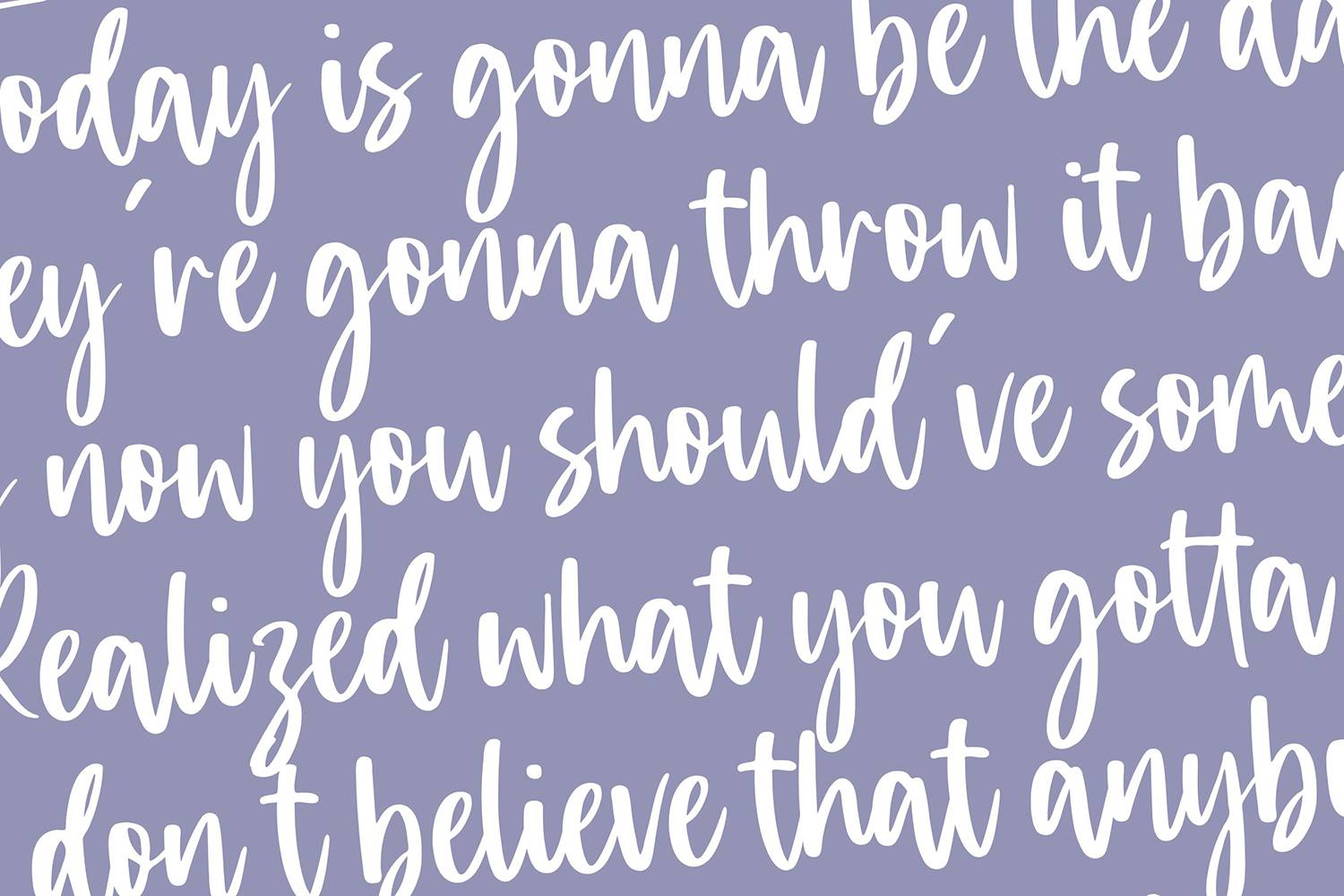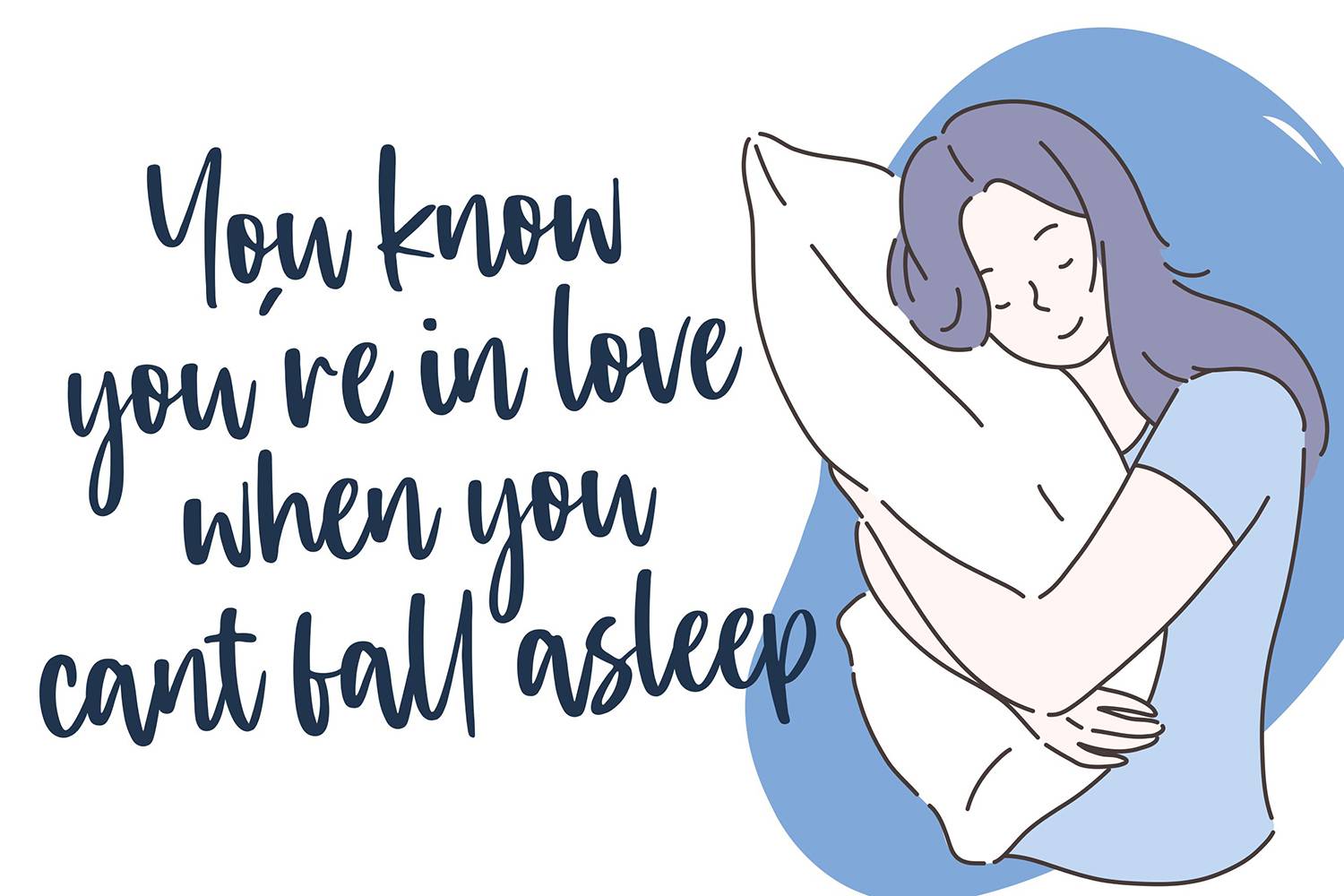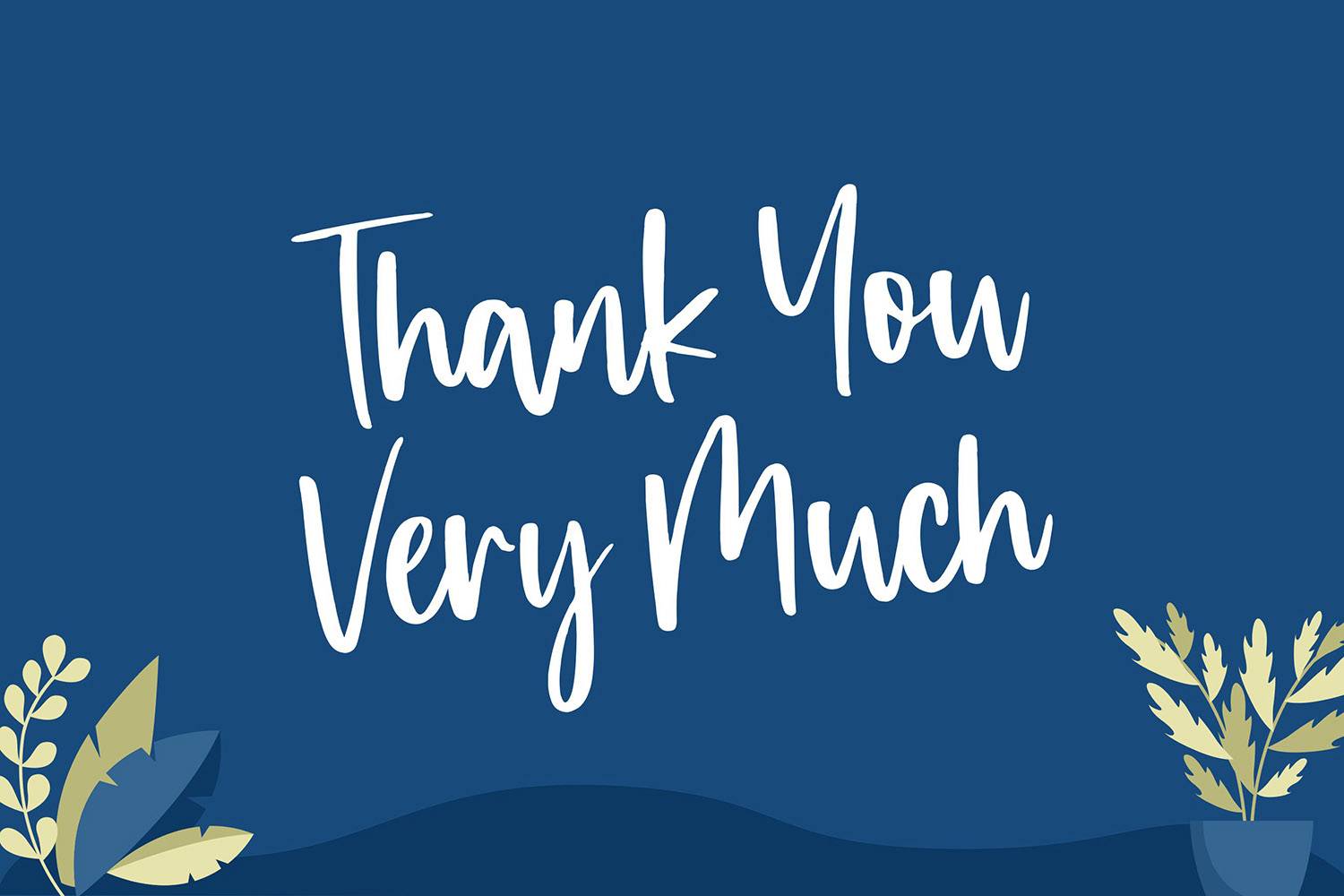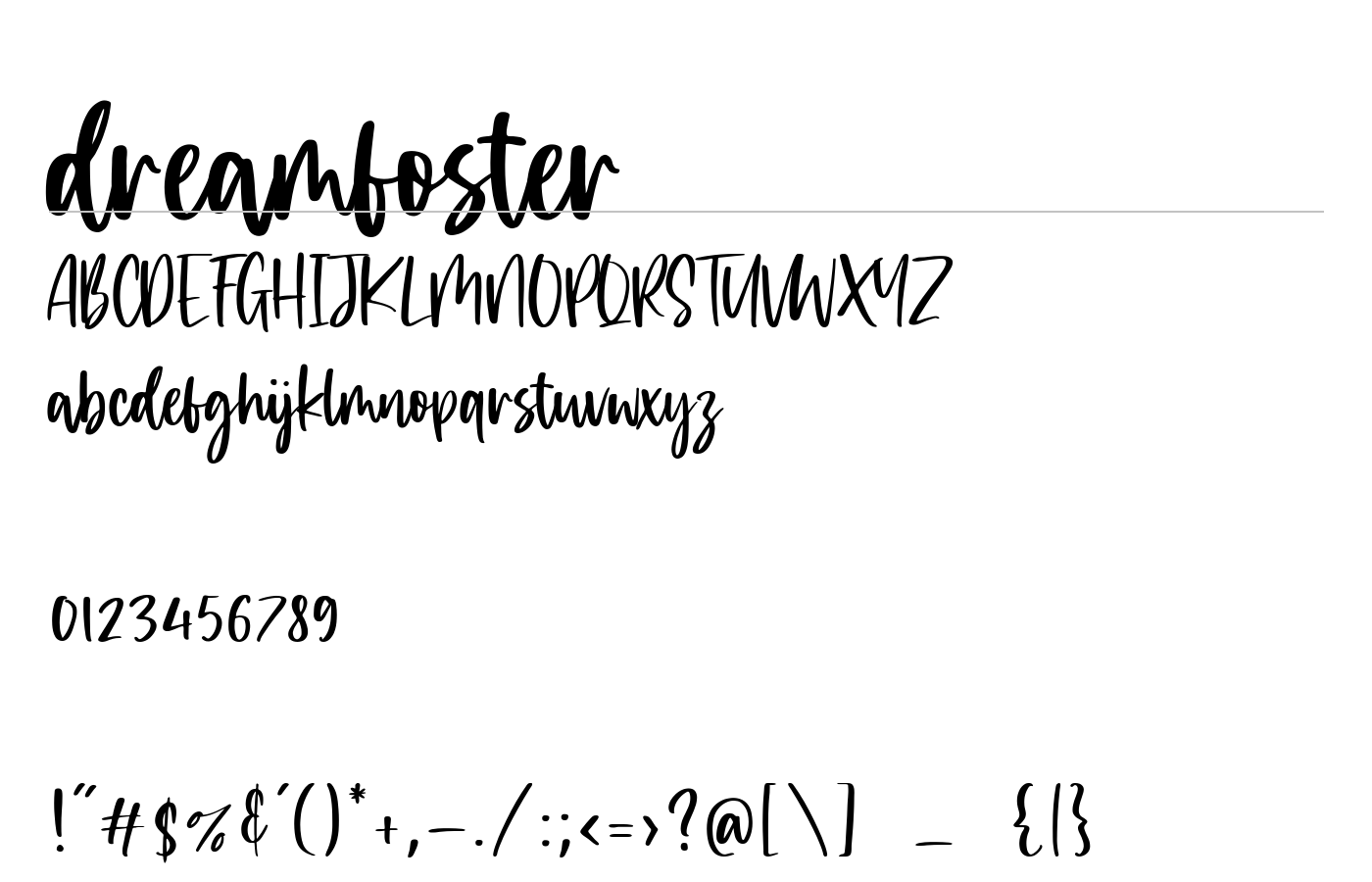
Dreamfoster is a lively script font with a hand-drawn, brush-lettered style that feels both casual and artistic. Its bold, flowing lowercase letters contrast with slender, airy uppercase characters, giving it a playful yet elegant personality perfect for creative projects, branding, and invitations. This font works well where a personal, approachable touch is needed, adding charm and warmth to logos, social media graphics, and packaging.
Dreamfoster Font
About Dreamfoster Font